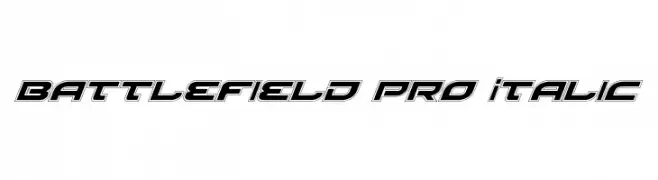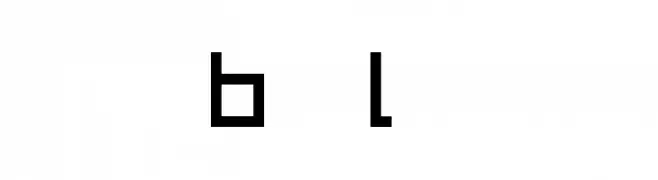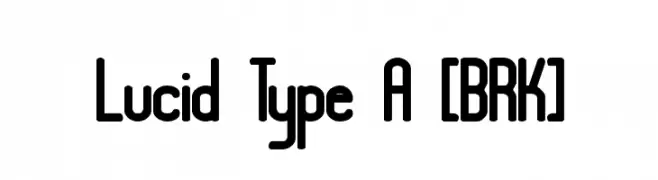
A playful, hand-drawn font with tall, narrow characters and a whimsical style.
A pixelated, retro-style font with a blocky, geometric design.
A modern, geometric font with rounded edges and consistent stroke width.
A bold, angular font with a dynamic, futuristic style.
A bold, pixelated font with a retro digital aesthetic.
A bold, italicized font with a futuristic and dynamic style.